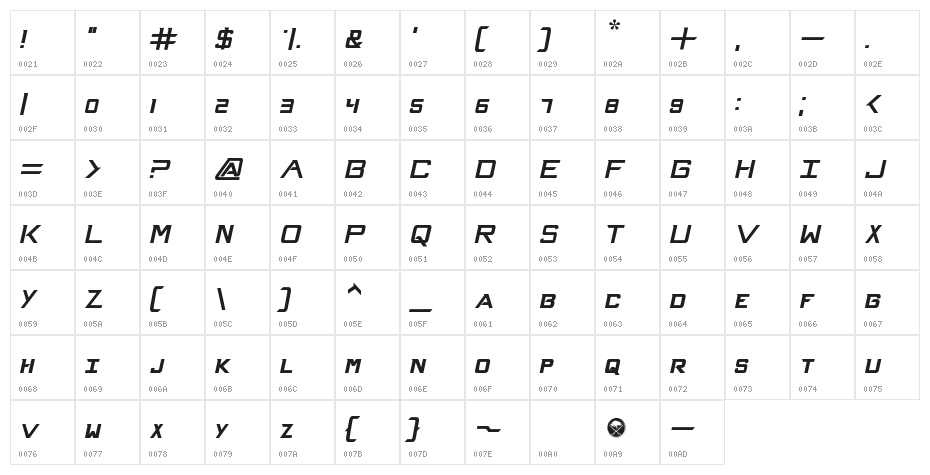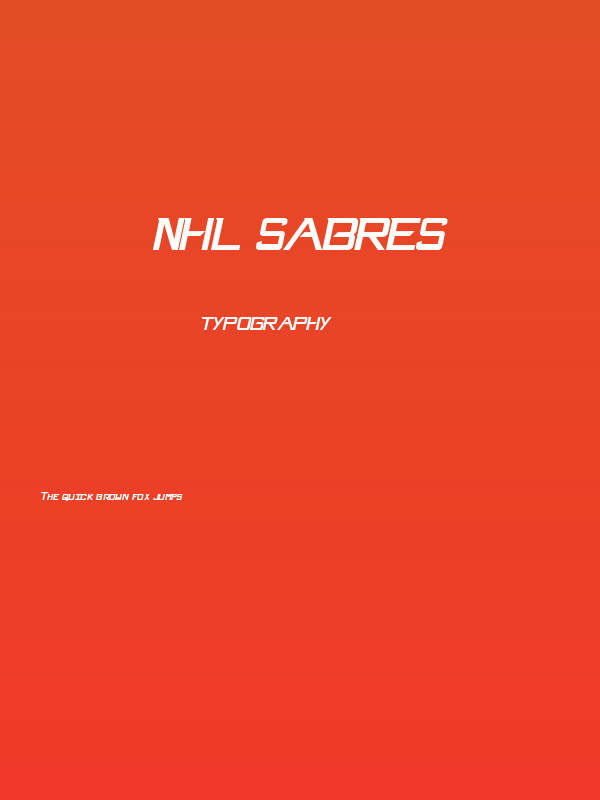
NHL Sabres Font
NHL Sabres Description
This font features a bold, angular design with a modern and sporty aesthetic. The characters are slightly slanted, giving a sense of motion and energy. The uppercase letters are distinct with sharp edges and a geometric style, while the lowercase letters maintain a consistent design. The numerals are clear and bold, matching the overall theme. Special characters are integrated seamlessly, maintaining the font's dynamic appearance. This font is ideal for projects that require a strong, impactful presence.
| Proposed Projects | Ideal for sports branding, team logos, dynamic posters, and merchandise designs. |